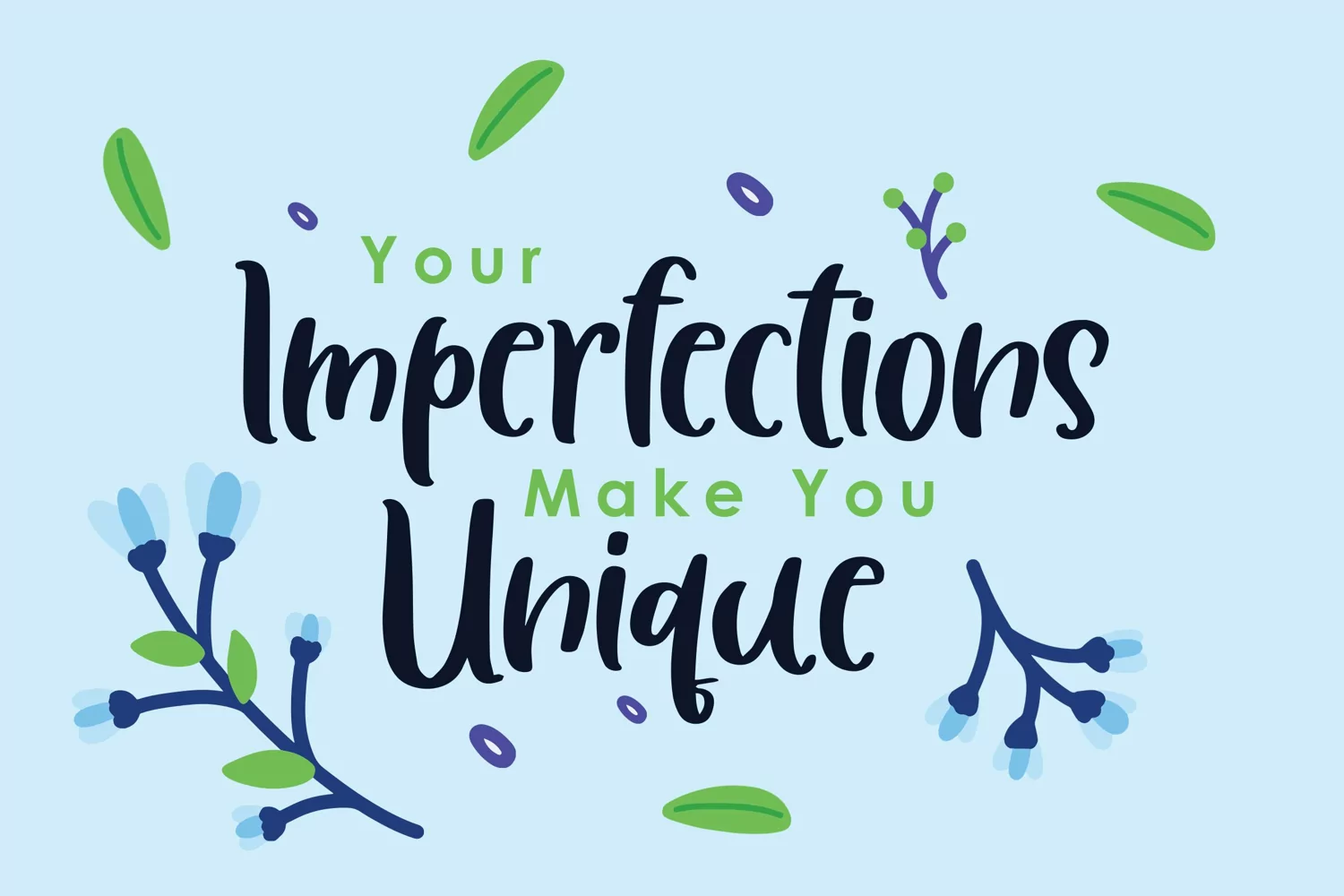
Cresselia - Fancy Handrawn Font that contain lowercase, uppercase, symbol, and also support multi language. There’s a lot ligatures in this font. This Font also comes with ligatures, alternates and many more. this font suitable for fashion, branding, catalog and other design what you want.